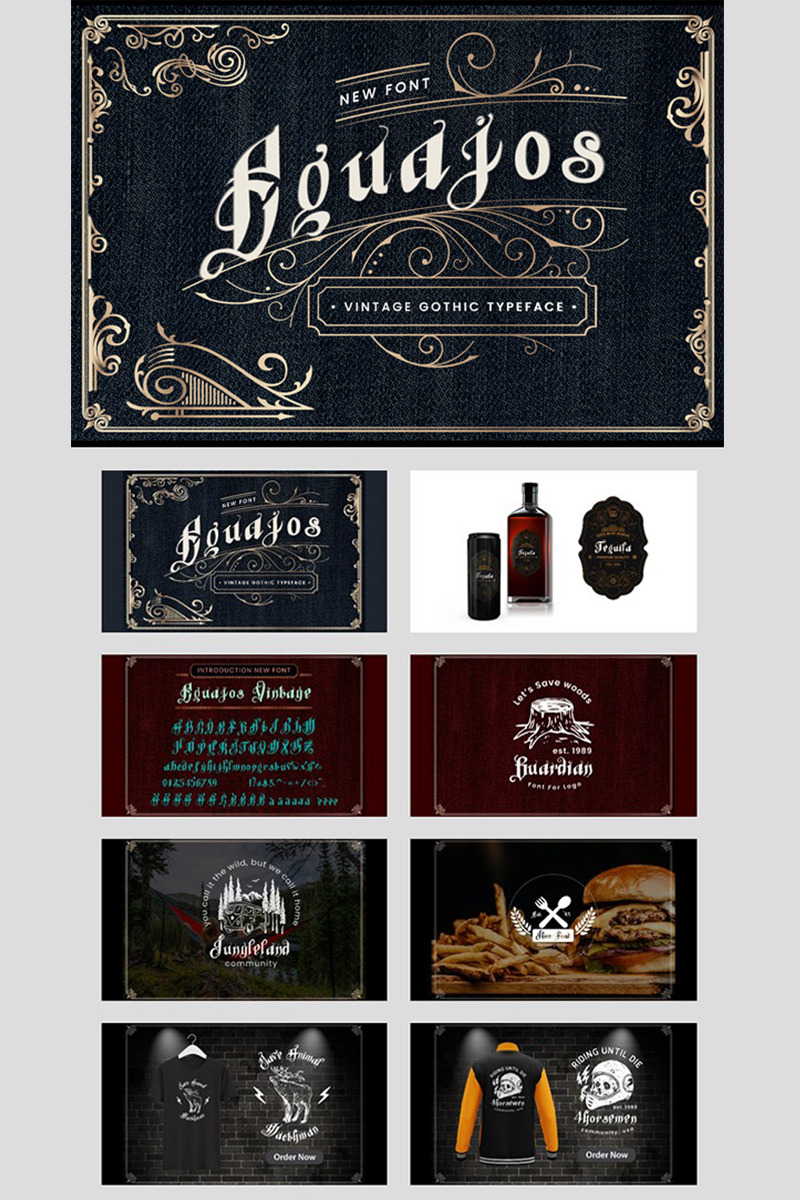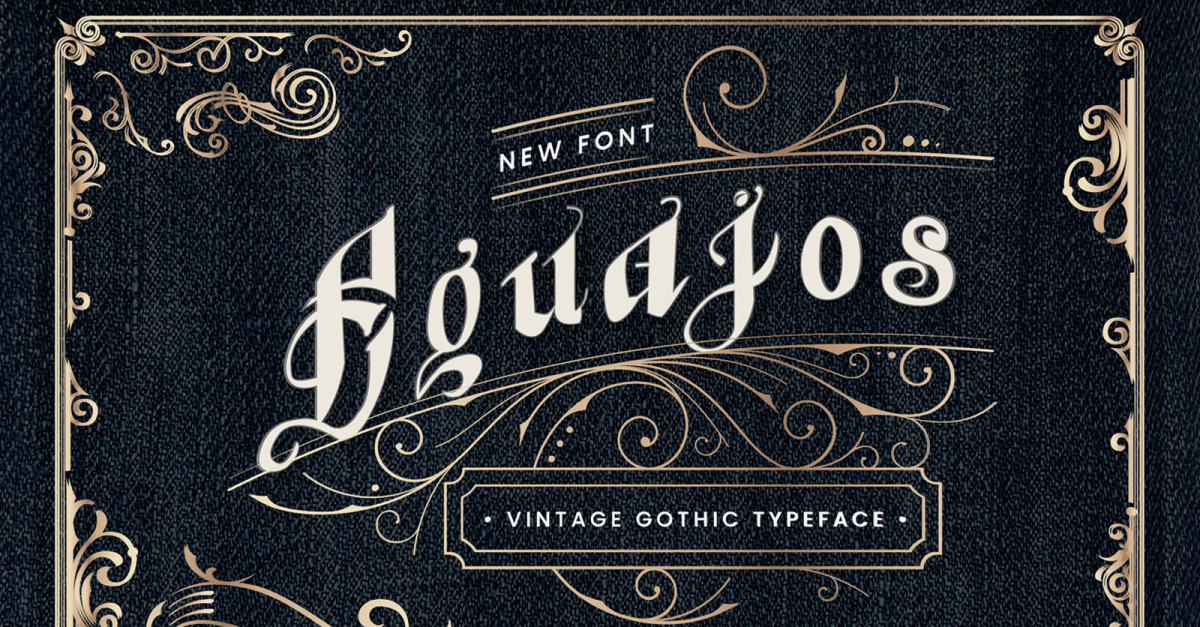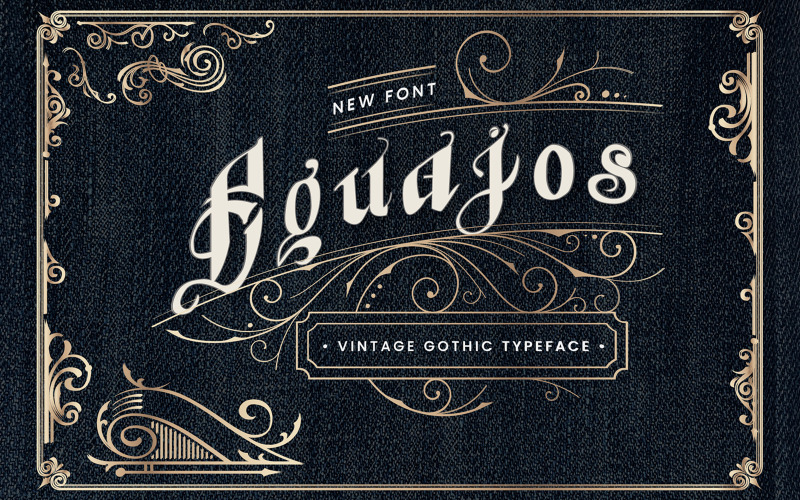
Font - Equajos Vintage Gothic
Equajos Vintage Font
Equajos Vintage Font inspired by Retro Gothic lettering sign and art. It still looks bold and solid. it’s perfect for many different projects such as for headline, logotype, apparel, invitation, labels, branding, packaging, advertising etc. Also can be used for Creative Projects.